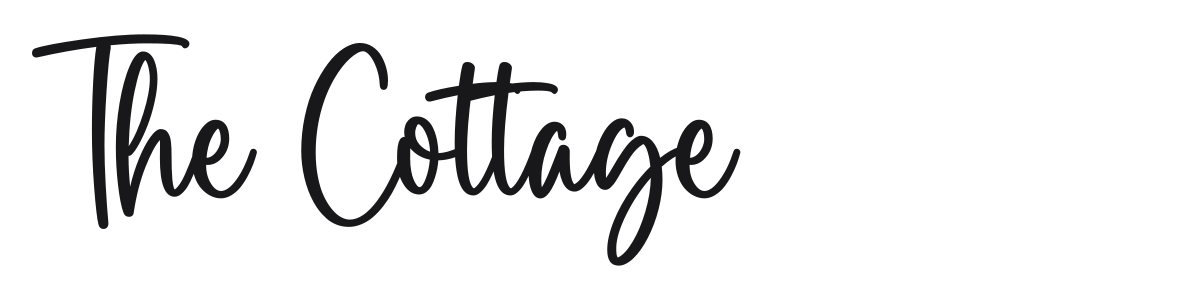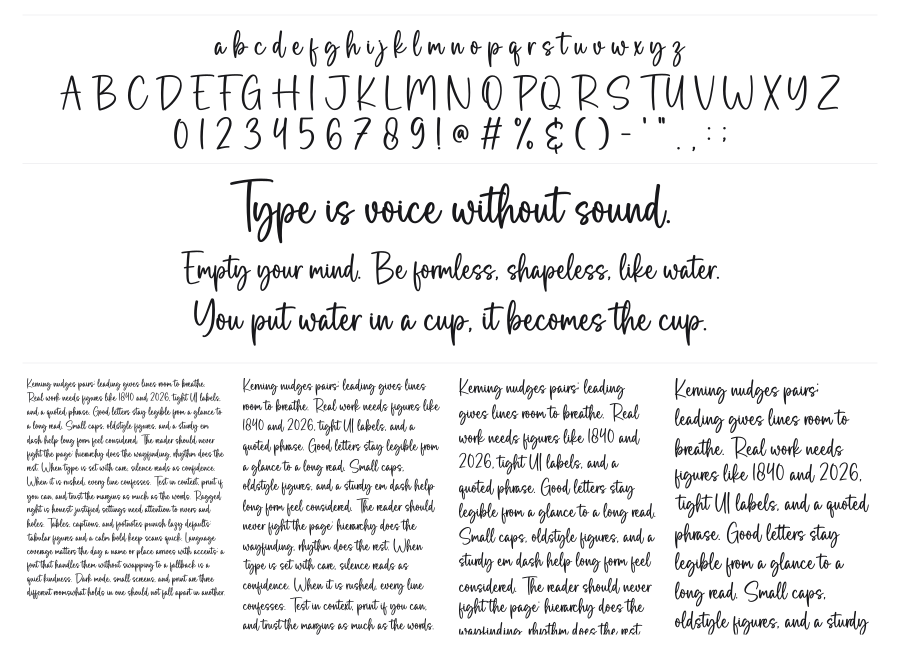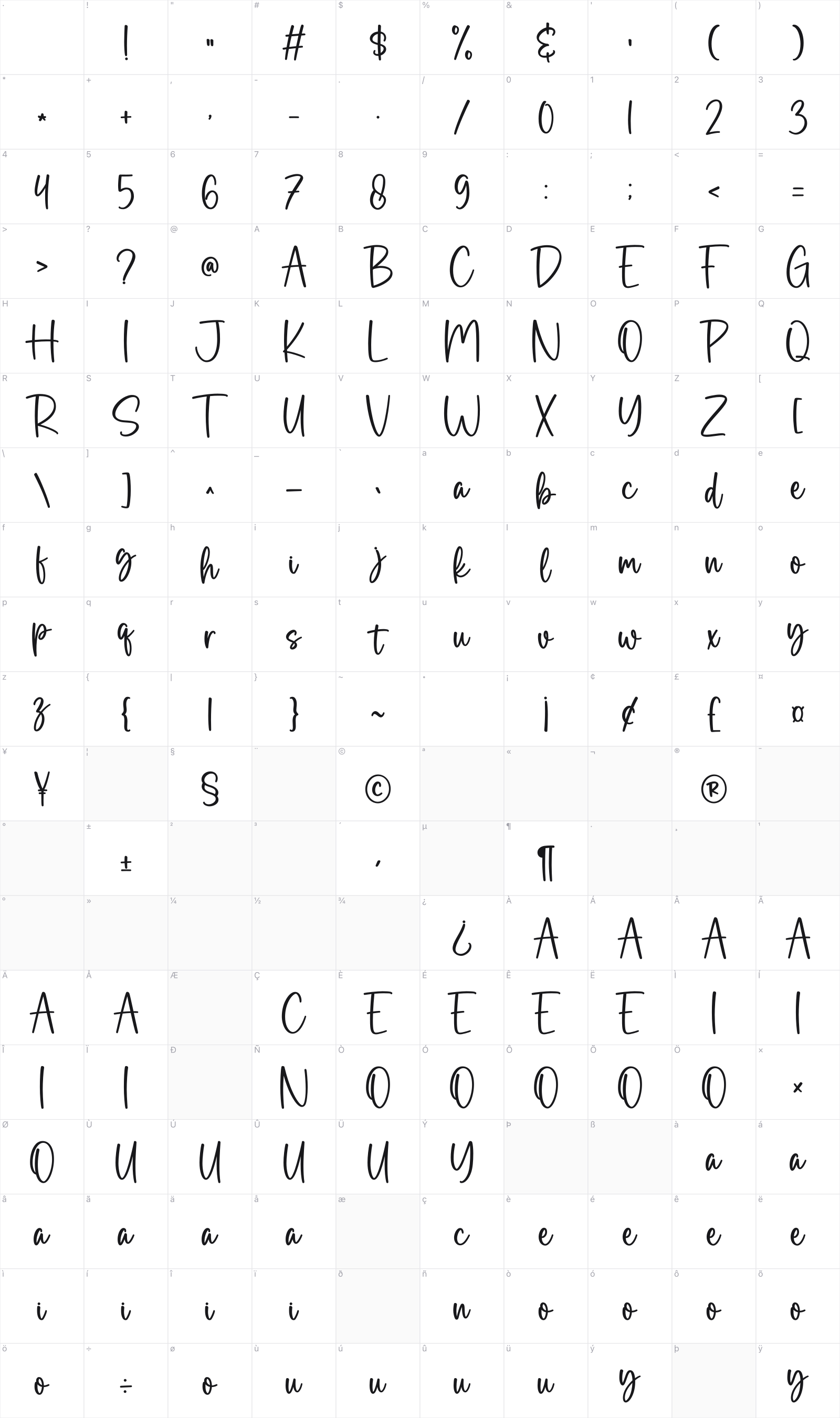
The Cottage
by Graphix Line Studio
The Cottage is a warm, hand-lettered casual script with flowing connections and a natural bounce that feels genuinely handwritten. Moderate stroke contrast between thick and thin strokes gives it legibility without losing its relaxed character. It sits comfortably in branding, packaging, and lifestyle contexts where personality matters.